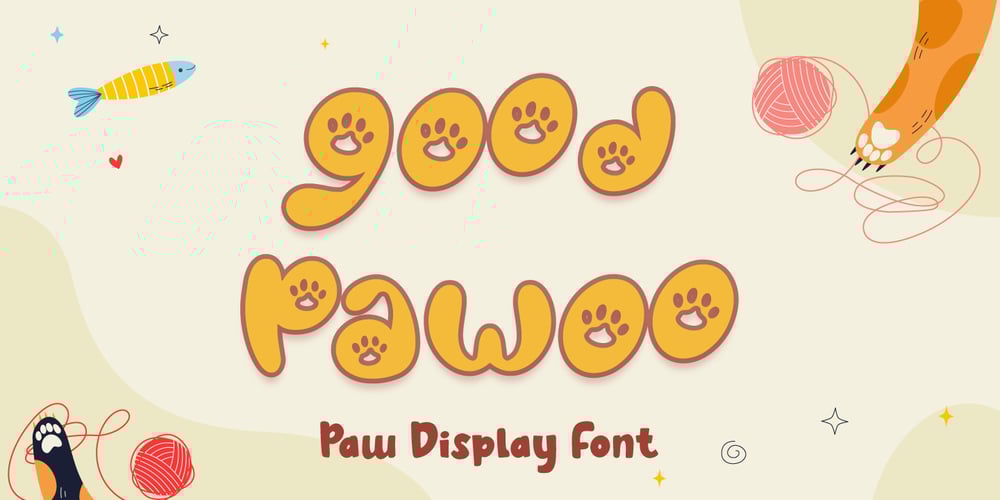
Good Pawoo Font Family was designed by Fadli Ramadhan Iskandar and published by Attype Studio. Good Pawoo contains 2 styles and family package options. Good Pawoo is unique Paw Display font, This font perfect for fun, quirky animal design.Combine ligatures Character to make perfect design for yor projects. Good Pawoo perfect for related animal design, vet promotion, branding, logo, invitation, stationery, social media post, product packaging, merchandise, blog design, game titles, cute style design, Book/Cover Title and more.Features :- Good Pawoo Family Font- Ligatures- Multilingual, US Roman, Latin 1 Support —Hope you enjoy with our font!Attype Studio